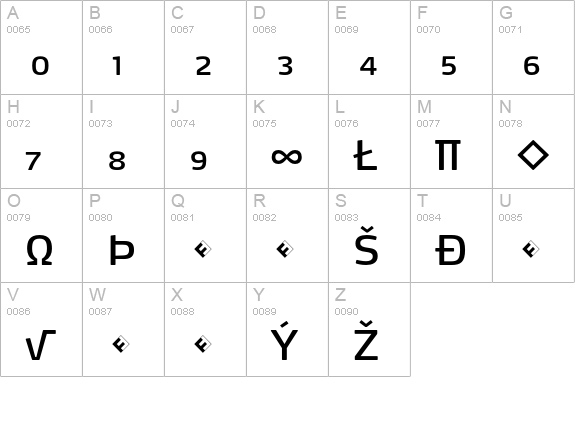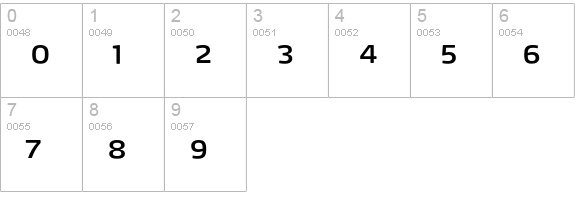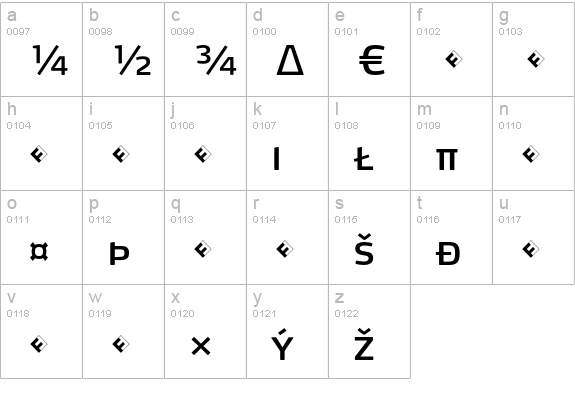
Max-BookSCExpert Font Details
Introducing Max-BookSCExpert font, a modern and versatile typeface that brings a touch of sophistication to your design projects. This elegant font features a sleek and stylish design, making it perfect for a wide range of applications, from branding to editorial design. Max-BookSCExpert font is the ideal choice for creating eye-catching headlines, elegant logos, and stylish branding materials. Its clean lines and sharp angles give it a contemporary and professional look that is sure to make your designs stand out. Best of all, Max-BookSCExpert font is available for free download at FontsMarket.com. This means you can easily add this stunning font to your collection without breaking the bank. Don't miss out on the opportunity to enhance your designs with this beautiful and versatile typeface. Download Max-BookSCExpert font today and take your projects to the next level!